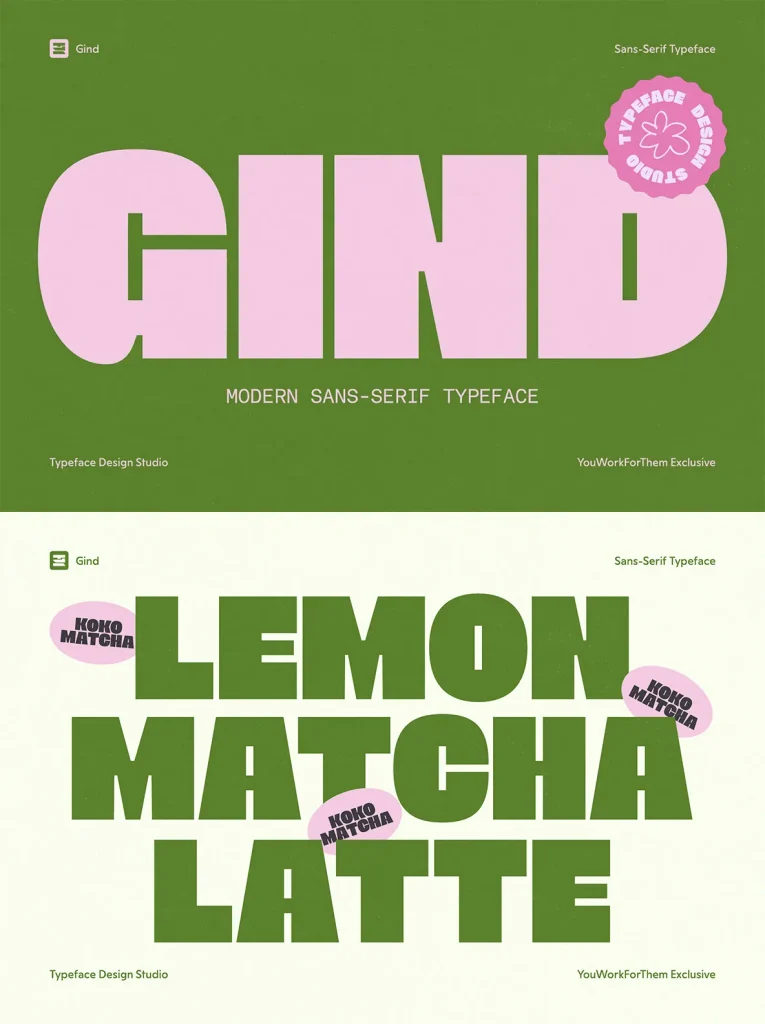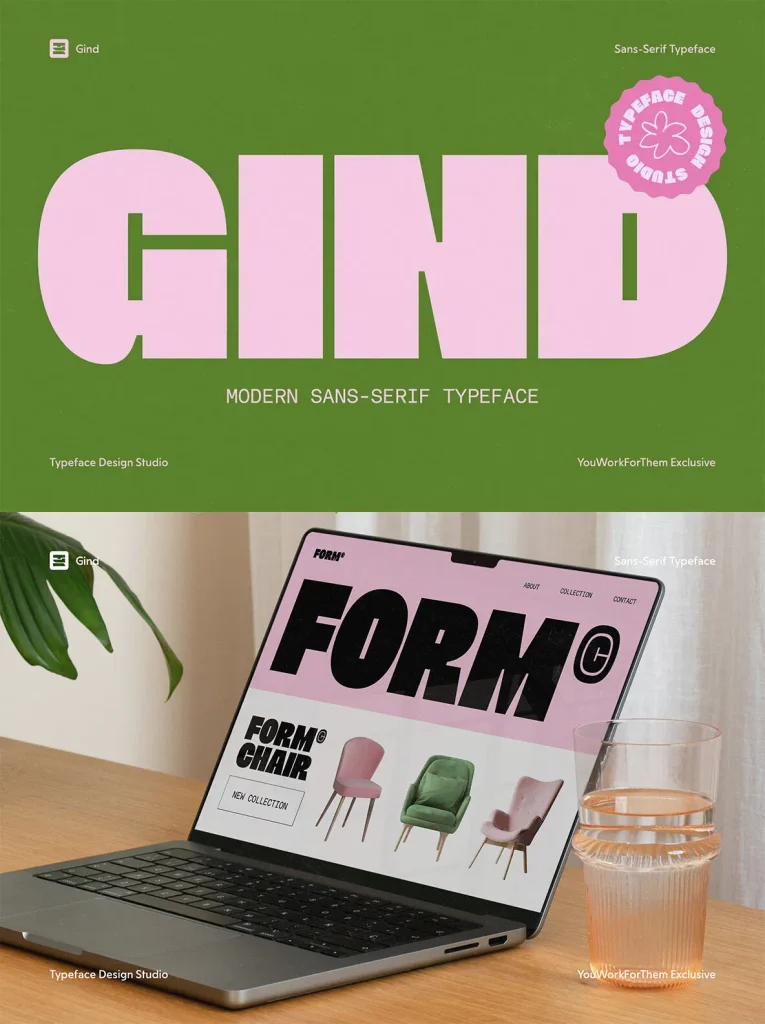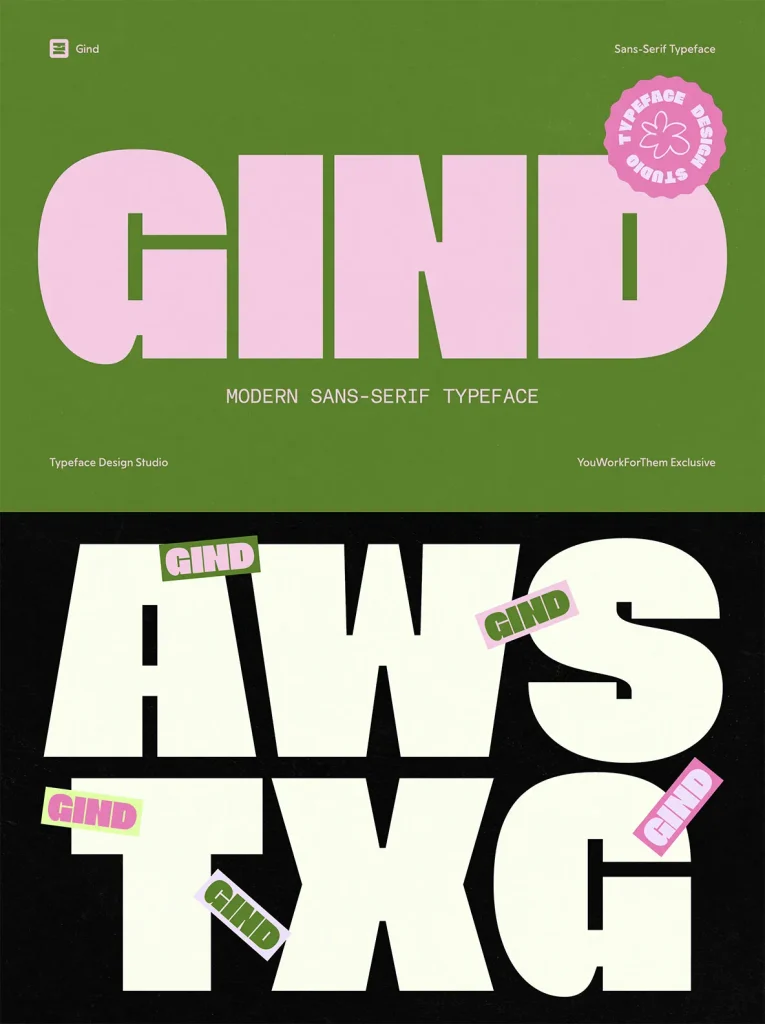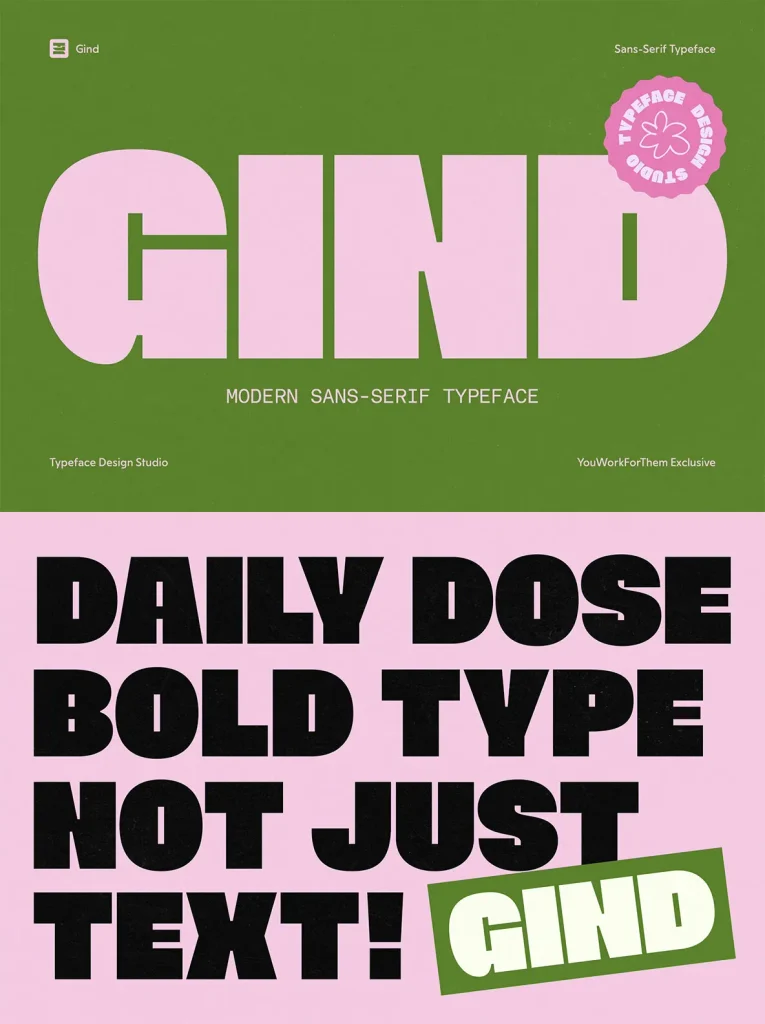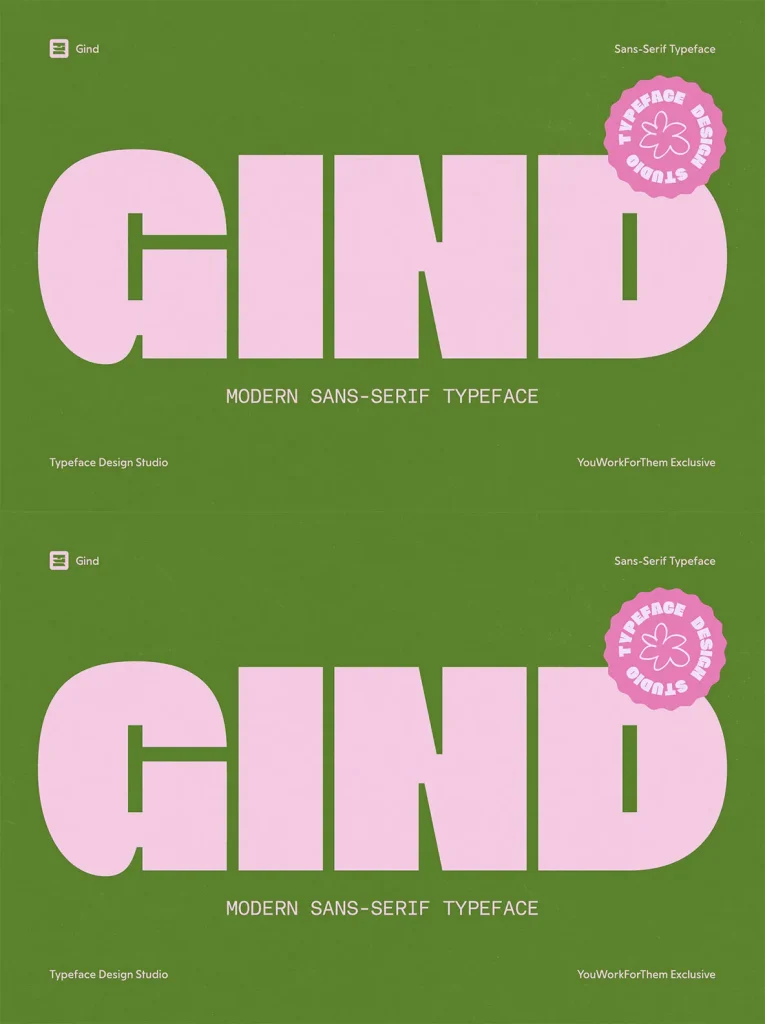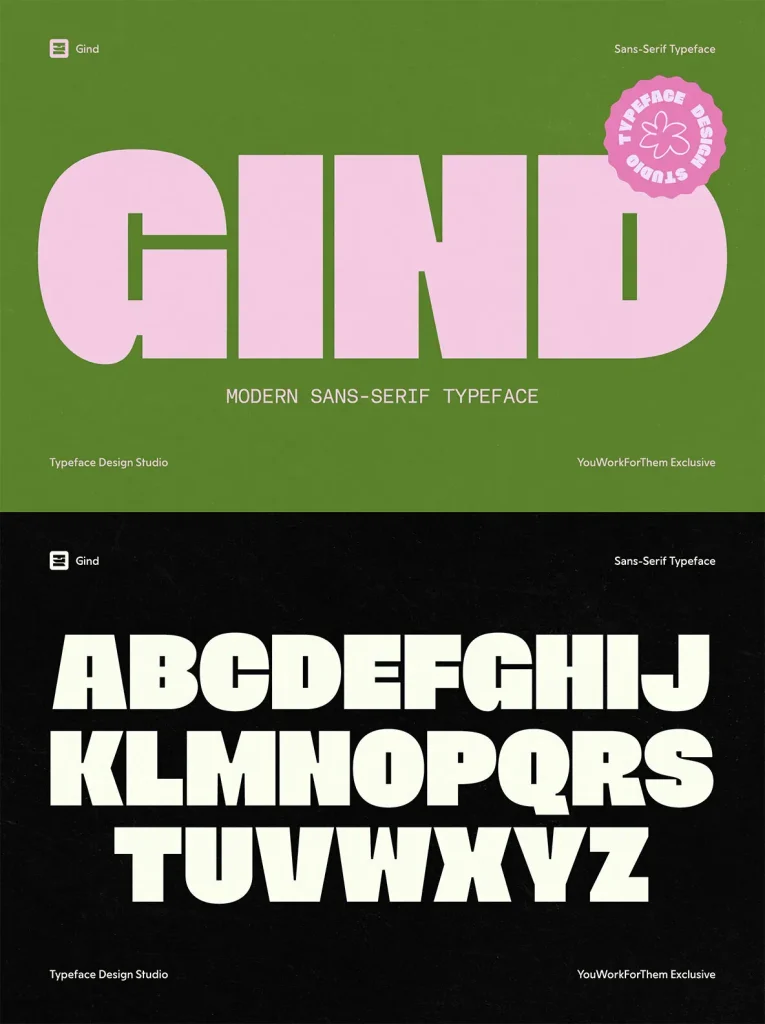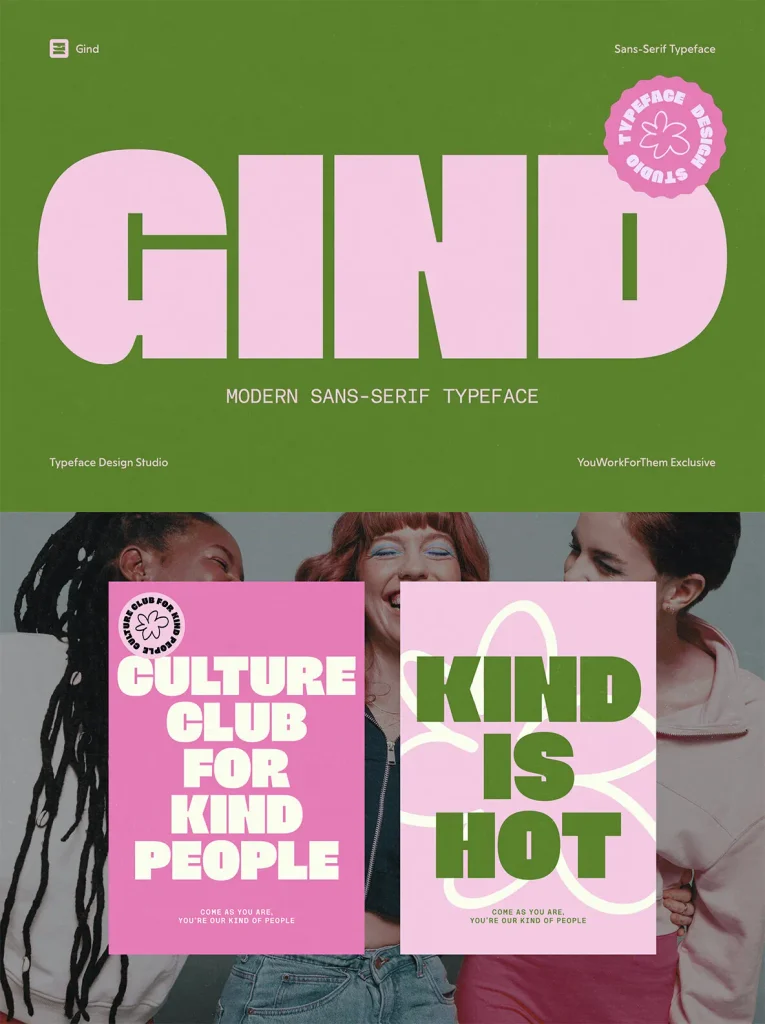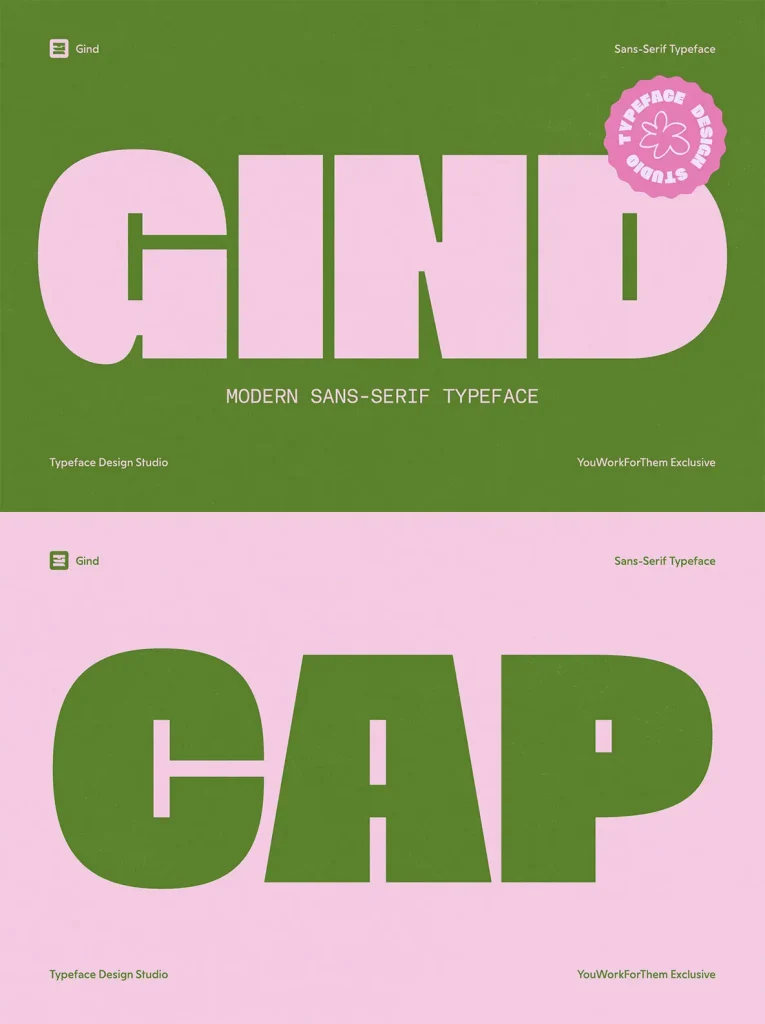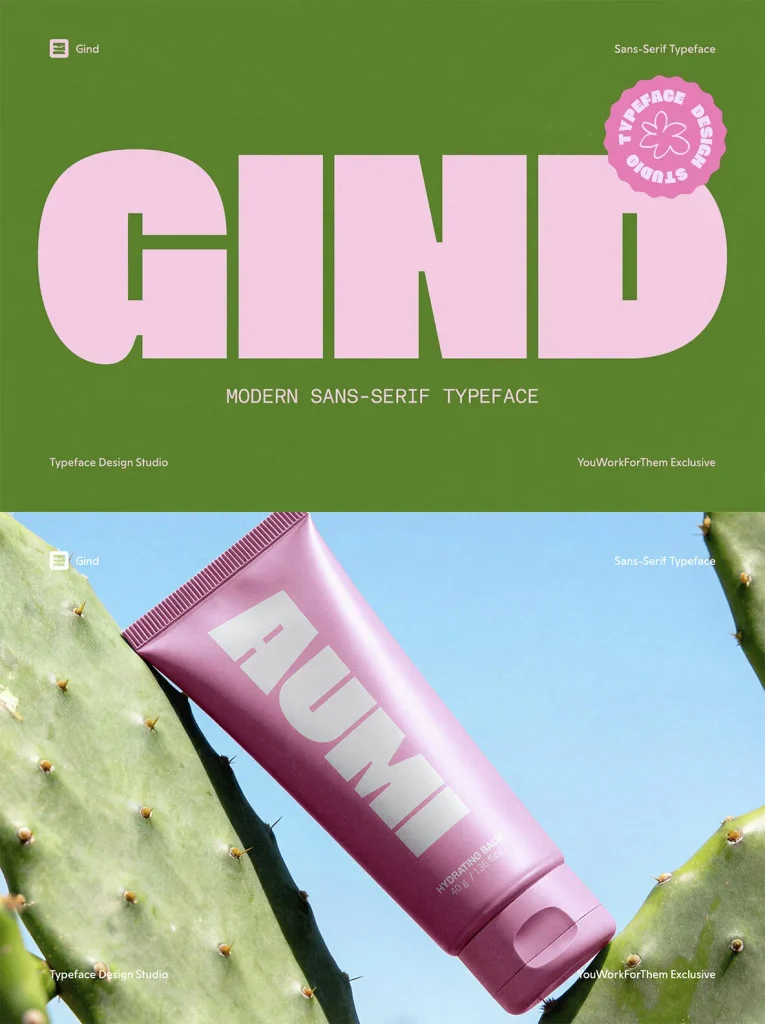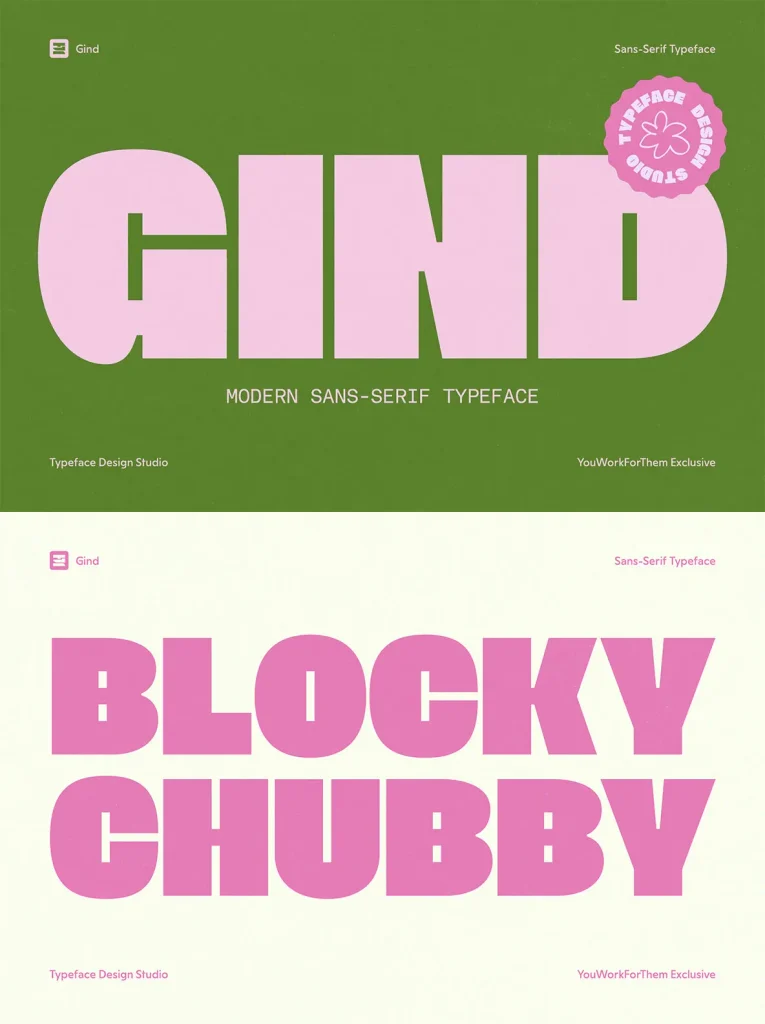
Gind — Bold Geometry That Holds
Gind is a bold, modern sans serif display typeface built for graphic design that needs clarity and impact. Designed exclusively in uppercase, each letterform shows careful attention to proportion and detail. The result is a contemporary, assertive voice with geometry and precision that stays legible across a wide range of uses.
Use Gind when type must do more than inform. It suits titles, branding systems, posters, and projects where text acts as both message and visual anchor. The readable shapes allow creative experimentation while keeping a polished, professional character in layouts for print and digital design.
Standard glyphs for reliable text composition
Comprehensive symbol and punctuation set
Supports multiple languages for global use